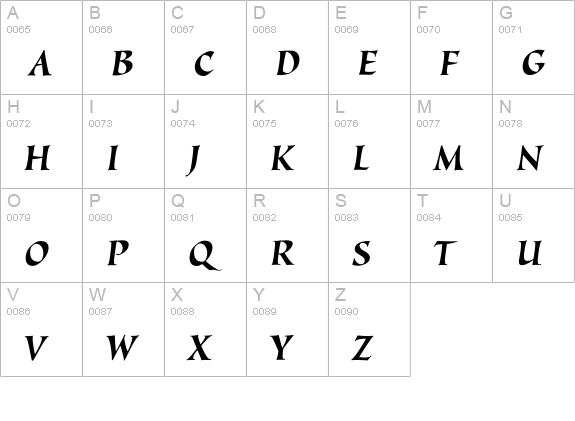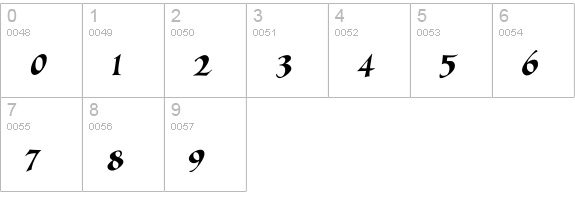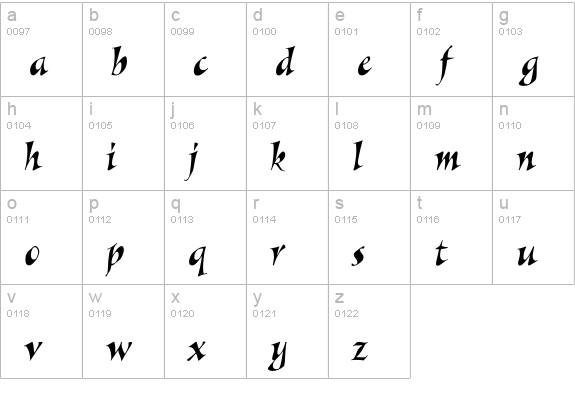
AIAlexiaItalic Font Details
AIAlexiaItalic is a beautiful and elegant font that exudes sophistication and style. Its delicate curves and flowing lines make it perfect for adding a touch of refinement to any project. Whether you're designing a wedding invitation, creating a logo, or crafting a website, AIAlexiaItalic will elevate your work to new heights. The best part? AIAlexiaItalic is completely free to download at FontsMarket.com. That's right, you can access this stunning font at no cost and start using it in your designs right away. Don't miss out on the opportunity to enhance your projects with the timeless allure of AIAlexiaItalic. Download it now and see the difference it can make!